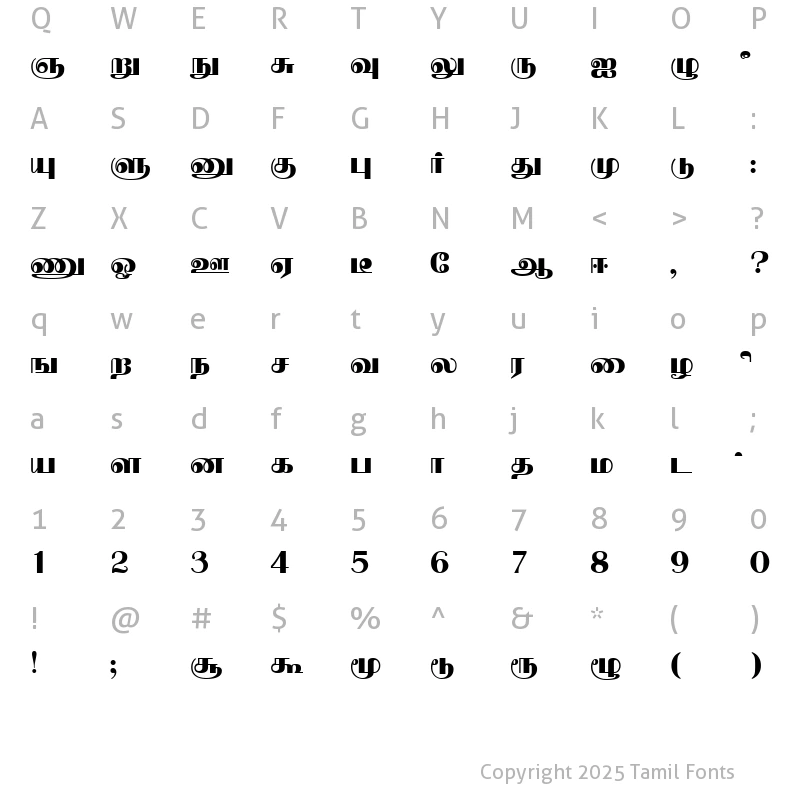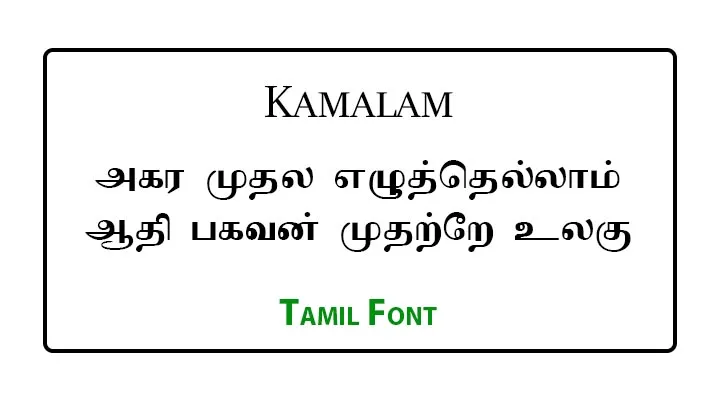
Kamalam Tamil Font Free Download. Kamalam is one of the Tamil Regular Font. Specially used in publications. Here you can download Font and Keyboard Layout for Free. This font is widely used by Tamil Nadu and Sri Lankan Tamil Peoples. The following font was design and generated by by Fontograpgher 3.5.